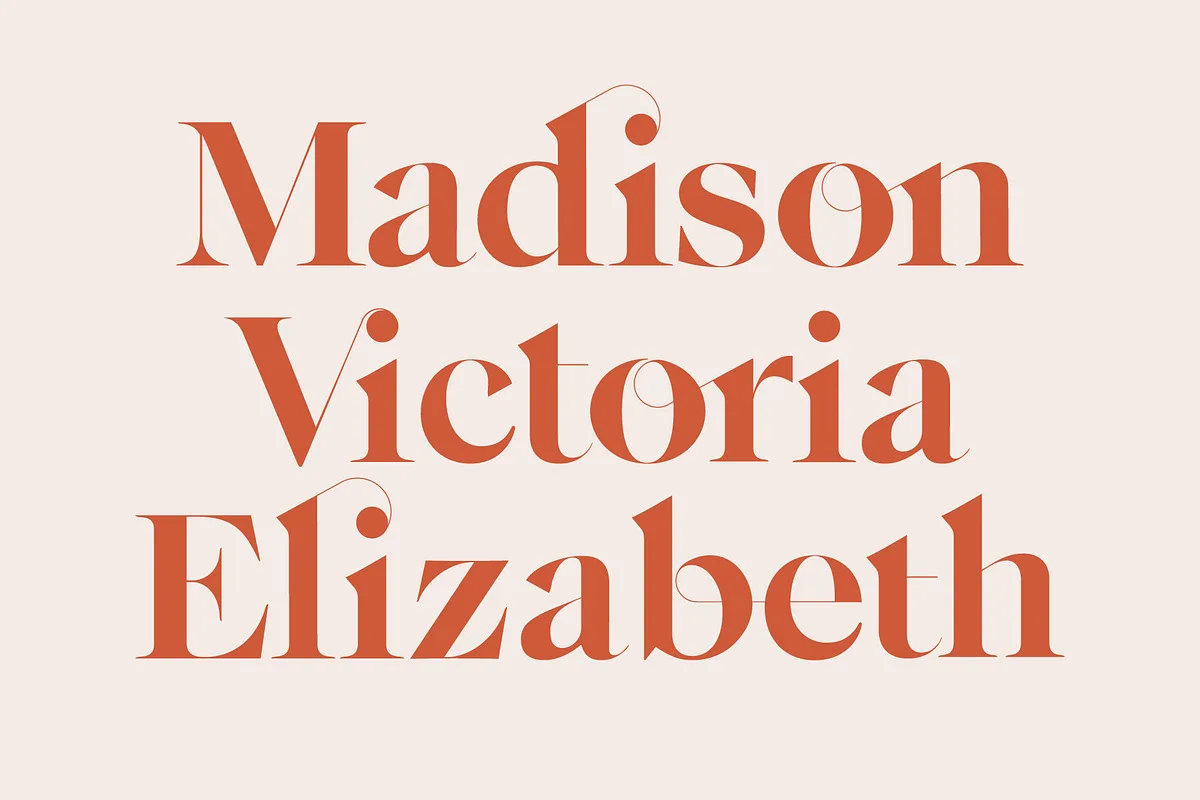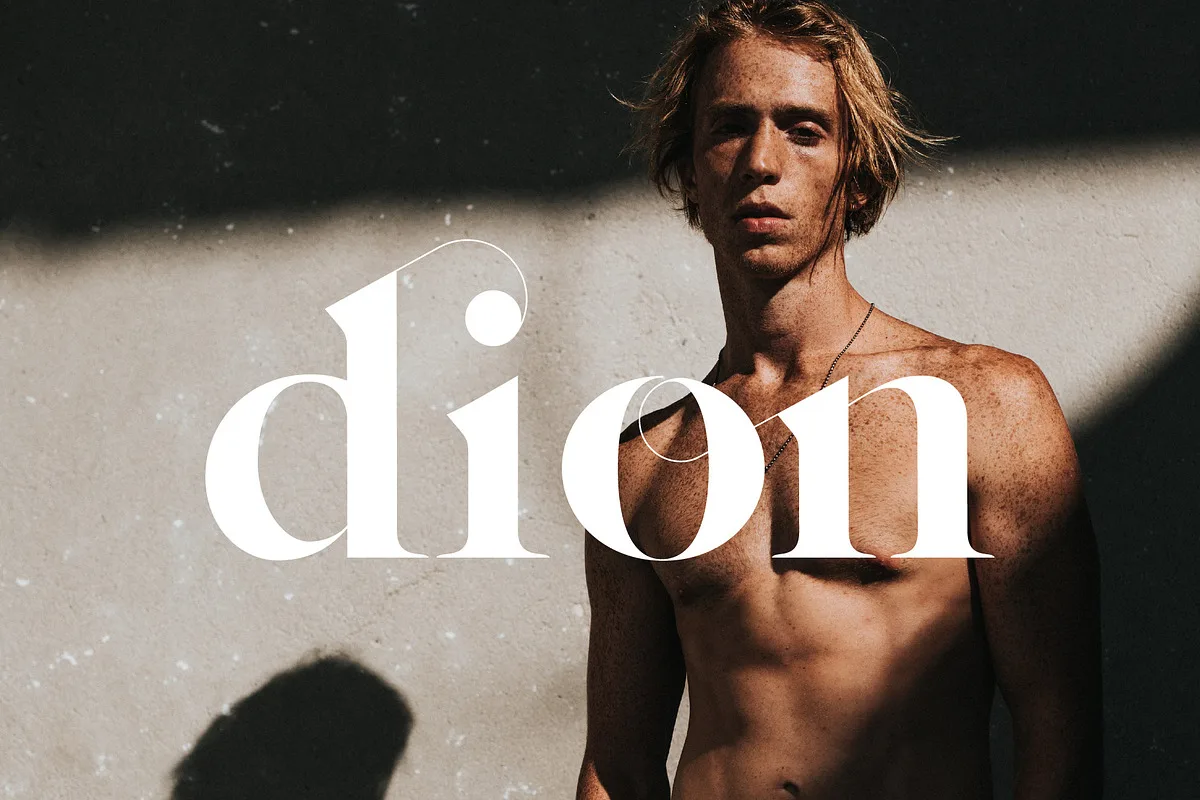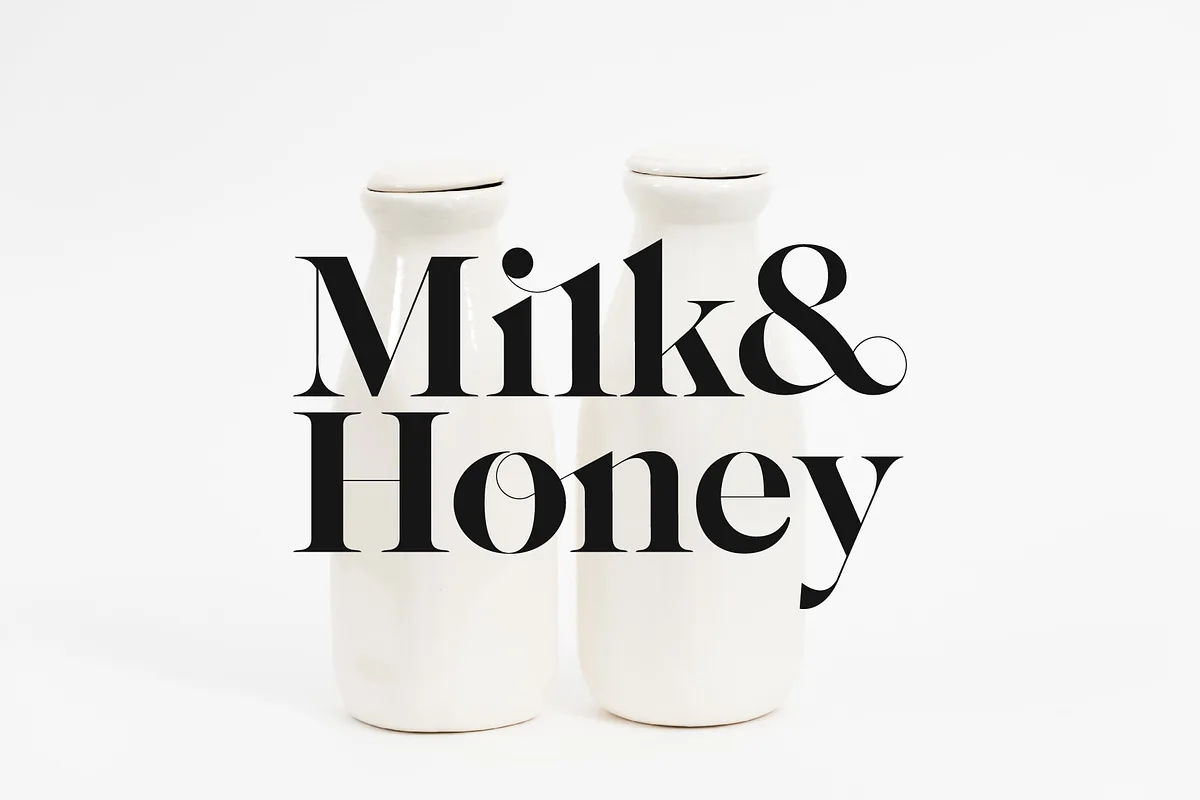
Sophillia is a ligature serif font. It is a super unique ligature font that you wont forget! It’s a high contrast serif that has loads of style. A modern take on a Caslon style typeface, this font is ideal for those big bold headings or wedding invitations.
It’s got hundreds of characters and ligatures plus all those European letters! Sophillia pairs perfectly with a light scripts font or minimal sans serif.
- Letters, Numbers, punctuation
- Multilingual support